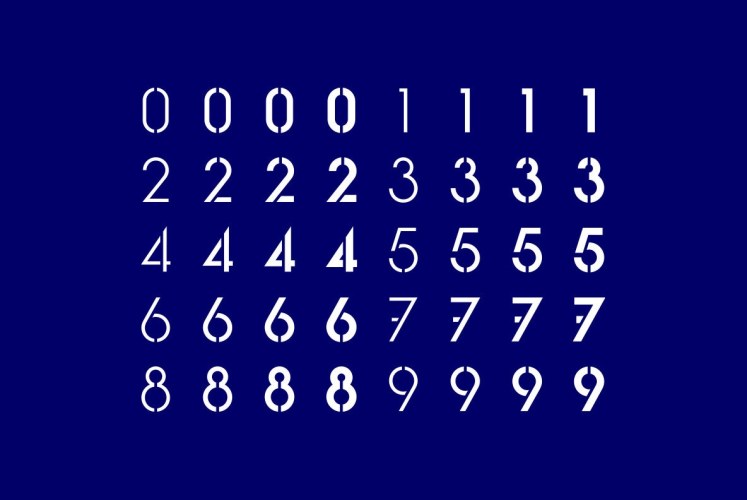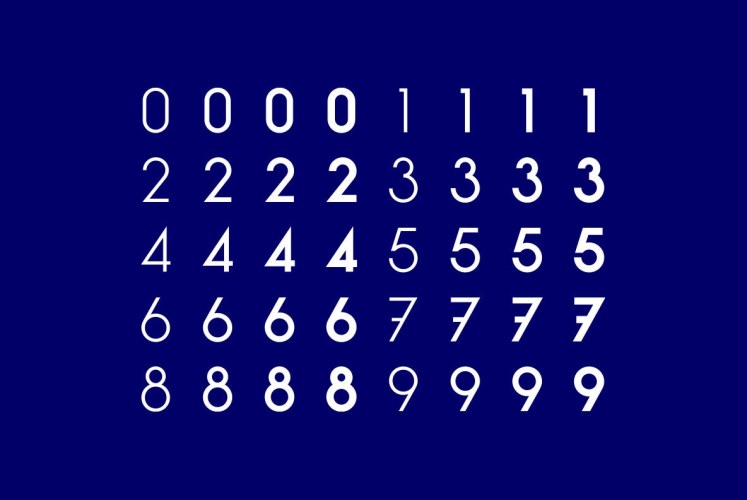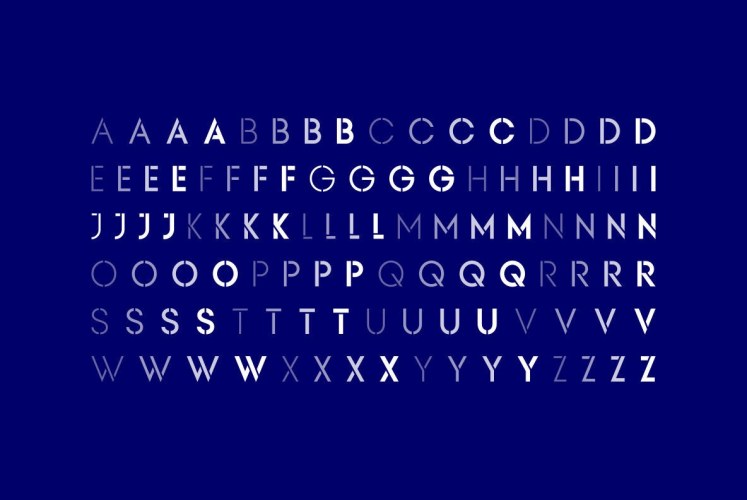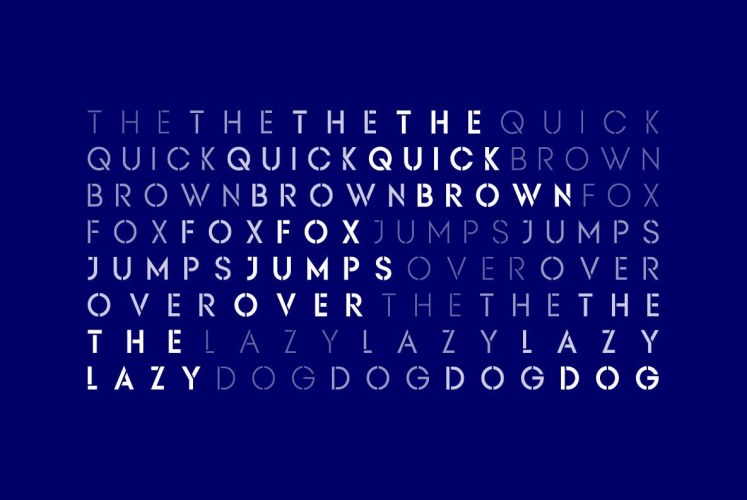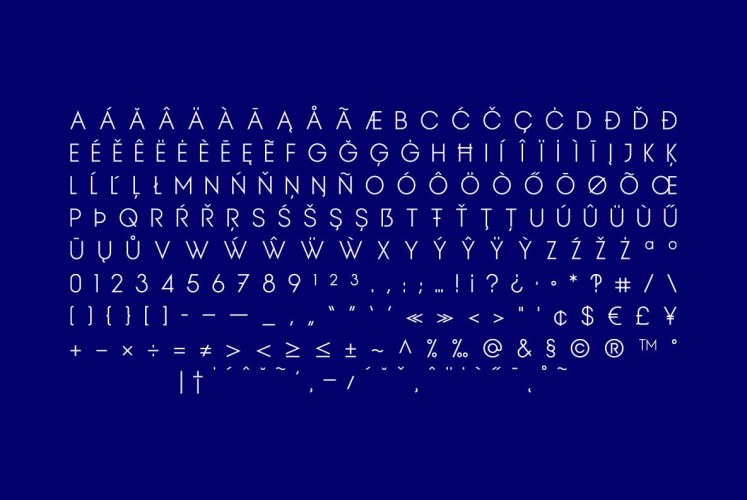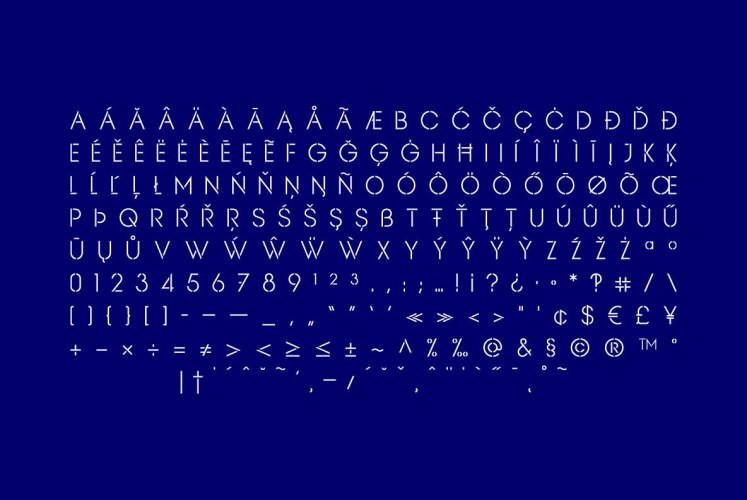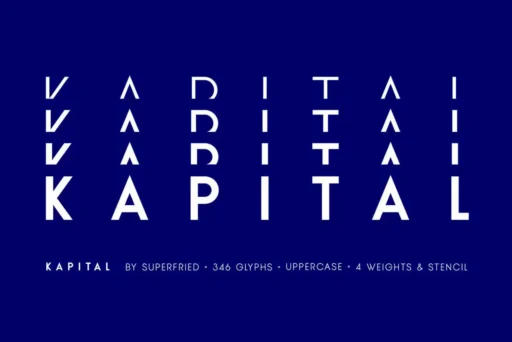
KAPITAL Font
Kapital is an elegant capital sans serif font family by Superfried that has strong geometric influences. This typeface comes in two distinctive styles: There are two types of fonts: the standard and the stencil. It is available in four different weights: The font contains four styles: light, regular, medium and demi, and 346 glyphs.
The capital set of the previous typeface release, Basik, serves as the base for Kapital. The Kapital idea upgrades Basik’s minimalism and takes it to the next level of minimalism and simplicity. This kind of control effectively keeps every character in the background while delivering the writer’s message to the viewer’s eye.
Special attention was paid to the consistency of the glyphs’ shapes across the weights. On many occasions, when typefaces become heavier, they differ greatly in shape and design from the normal versions. So, Kapital font solves this by having a relatively high level of form similarity across all the different weights. Also, the treatment of the voids was given a lot of attention. Some degree of negative space is unavoidable; however, the designers made suitable modifications to the letterforms to reduce the phenomenon and attain a more harmonious design throughout the typeface.
KAPITAL Font is a Sans Serif Fonts font that brings a professional and versatile look to your projects. Kapital is an elegant capital sans serif font family by Superfried that has strong geometric influences.